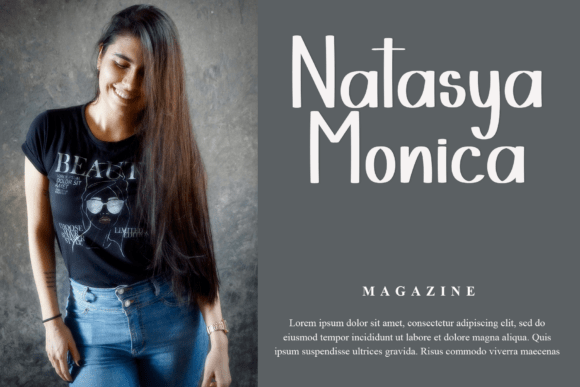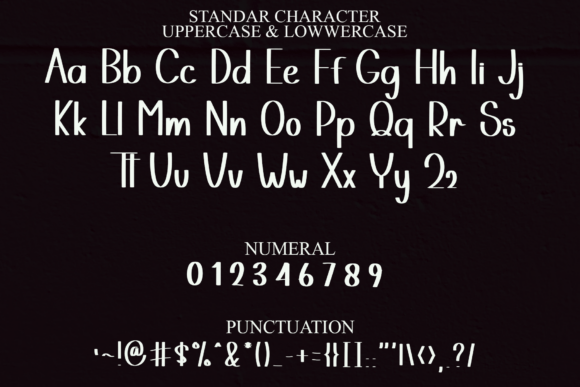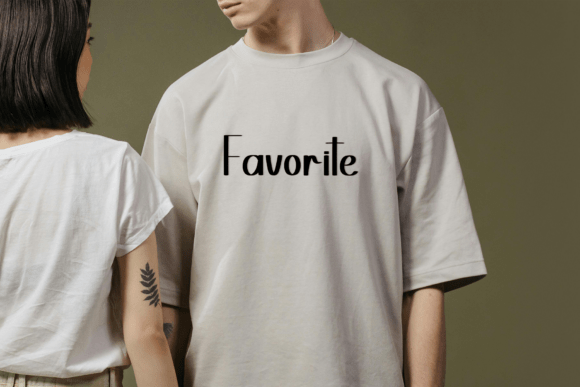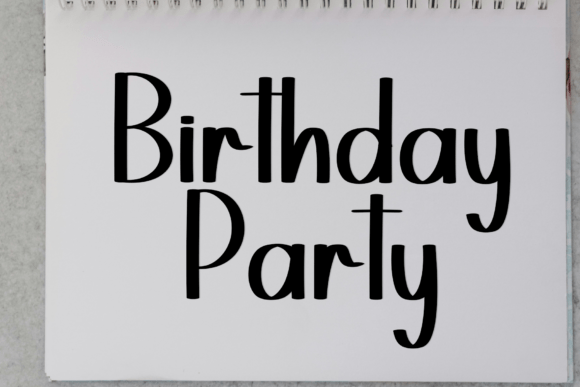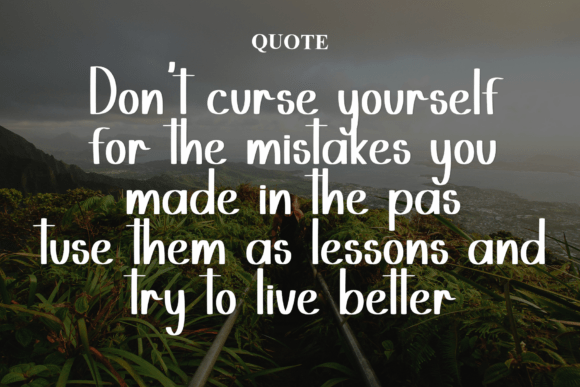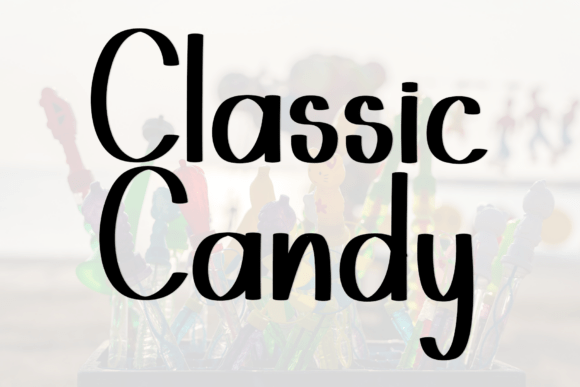
Introduction to Magical Candy Font
Have you ever found yourself staring at a blank canvas, trying to bring a creative project to life, only to be stuck on the perfect font? We’ve all been there – the blank page staring back, a sea of options overwhelming us, and the pressure to get it just right. But what if I told you that there’s a font that’s as sweet as it is versatile? Enter the Magical Candy Font, a delightful handwritten font that’s about to become your new go-to design resource.
This free download is a game-changer for designers, offering a high-quality, transparent background that’s perfect for adding a touch of whimsy to your next project. With its natural, unique style, the Magical Candy Font is incredibly fitting to a wide range of designs, limited only by your imagination.
About the Magical Candy Font
Key Features of Magical Candy Font
- High-quality design: Magical Candy Font offers a unique and eye-catching aesthetic, perfect for creative projects that require a touch of whimsy.
- Perfect for creative projects: Whether you’re designing a children’s book, a wedding invitation, or a marketing campaign, the Magical Candy Font is the perfect choice for adding a touch of magic and whimsy.
Honest Review: Magical Candy Font
I recently stumbled upon the Magical Candy Font while searching for a free design resource to enhance my creative project. The first thing that caught my attention was the transparent background, which made it easy to integrate into my design.
What works well: ✨ The Magical Candy Font is a high-quality font that offers a unique and playful aesthetic. It’s perfect for designers looking to add a touch of whimsy to their creative projects. The font is also incredibly versatile, making it suitable for a wide range of design applications.
Here are some key features that make the Magical Candy Font stand out:
However, I do have to mention a few limitations: ⚠️ The font is only available in a limited number of styles, which may not be suitable for all design applications. Additionally, the font may not be compatible with all design software.
Overall, I’m impressed with the Magical Candy Font. It’s a great resource for designers looking to add a touch of magic to their creative projects. While it may have some limitations, it’s definitely worth checking out.
The Magical Candy Font is a free download design resource ideal for creative projects requiring a high-quality, unique aesthetic. With its transparent background, this font is perfect for designers who want to add a touch of whimsy to their designs.
The Magical Candy Font is perfect for designers who work on creative projects such as:
- Children’s party invitations
- Wedding stationery